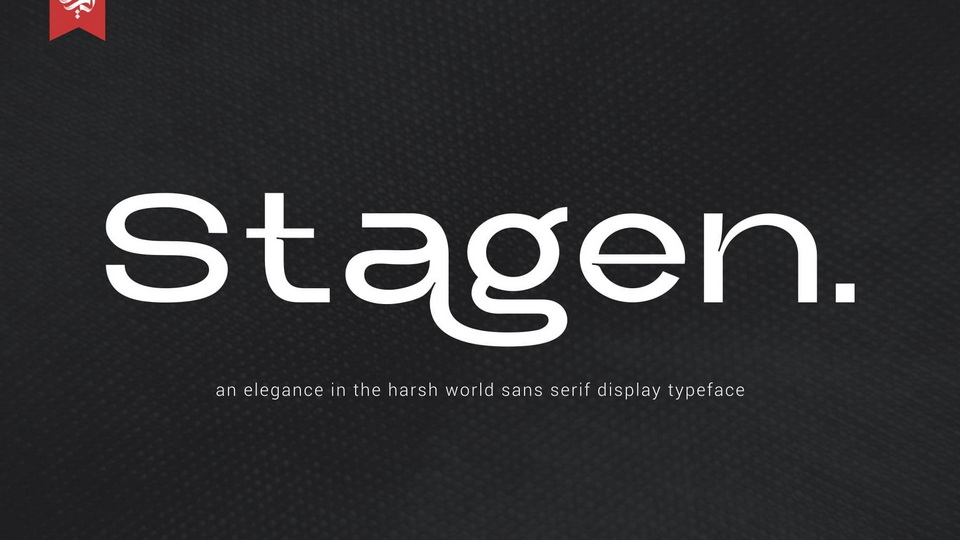
Download Stagen font, a modern sans serif typeface that has an upright and sturdy impression, with unique curves in it. Stagen is a simple, yet distinctive, elegant font that can be applied to many areas of design.